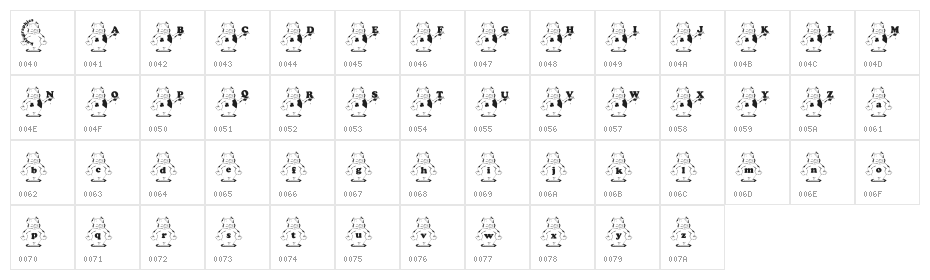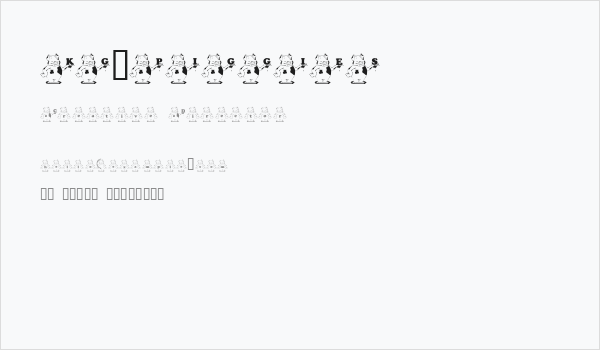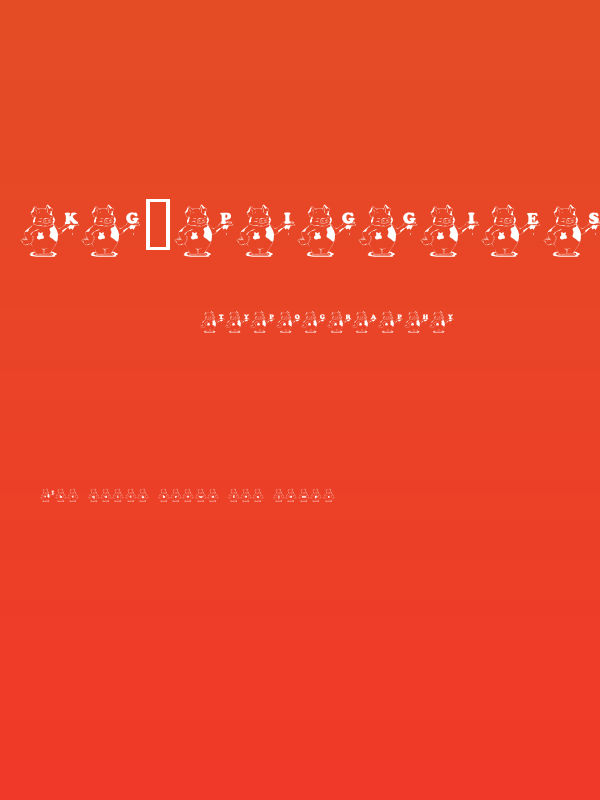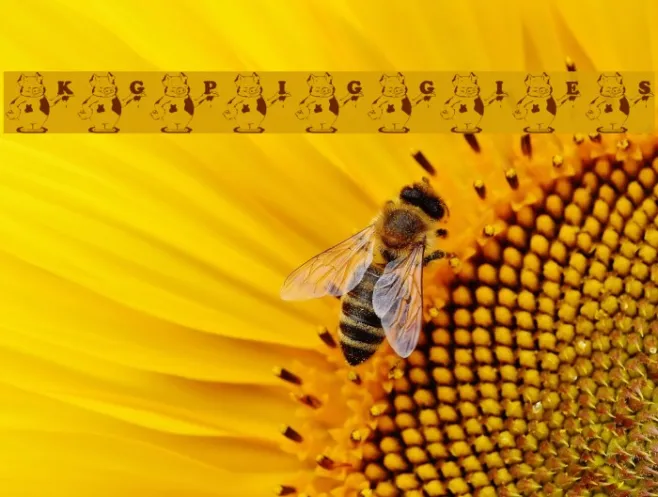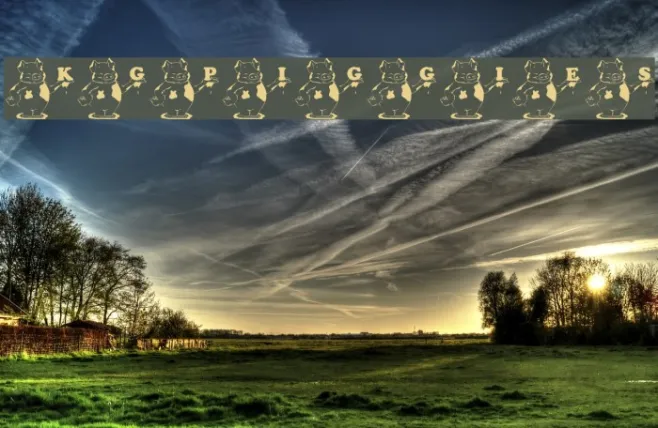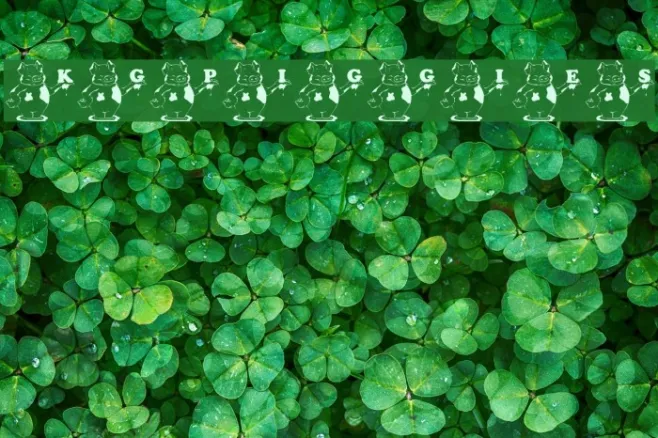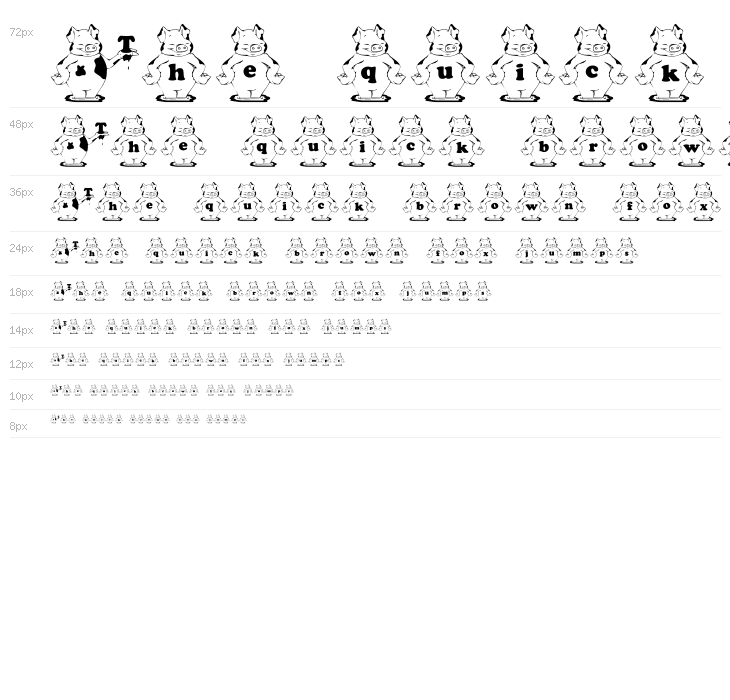
KG_PIGGIES Font
KG_PIGGIES Description
This playful and whimsical font features each letter encapsulated within a cartoon pig character, creating a unique and entertaining visual style. The letters are bold and clear, ensuring readability despite the decorative elements. The pig characters are consistent in design, adding a cohesive and charming aesthetic. This font is perfect for projects that require a fun and lighthearted touch, appealing to children and those seeking a humorous vibe. The combination of the character design with the letters provides a distinctive look that stands out.
| Overall Style | Whimsical, Playful |
| Use Case | Headlines, Logos, Decorative text |
| Proposed Projects | Ideal for children's books, playful invitations, educational materials, and themed party decorations. |